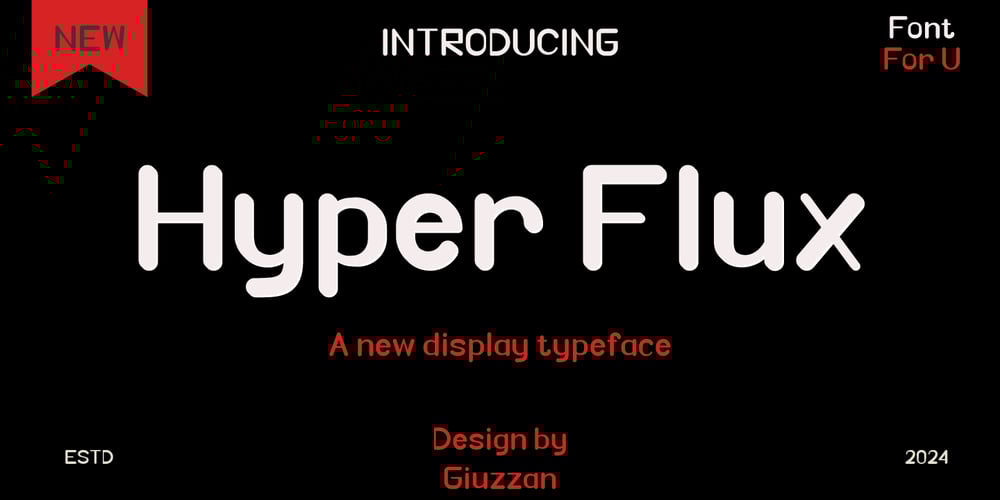
Hyper Flux Font Family was designed by Muhamad Fauzan and published by Giuzzan. Hyper Flux contains 1 styles and family package options. Hyper Flux is a dynamic, futuristic display font designed to stand out. With sharp, geometric lines and a bold aesthetic, it’s perfect for posters, logos, and headlines. Easy to read and versatile, Hyper Flux adds a modern, energetic touch to any design project. Ideal for making a strong visual impact.